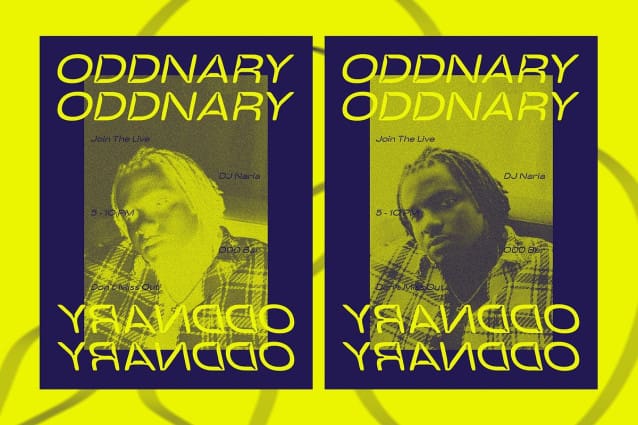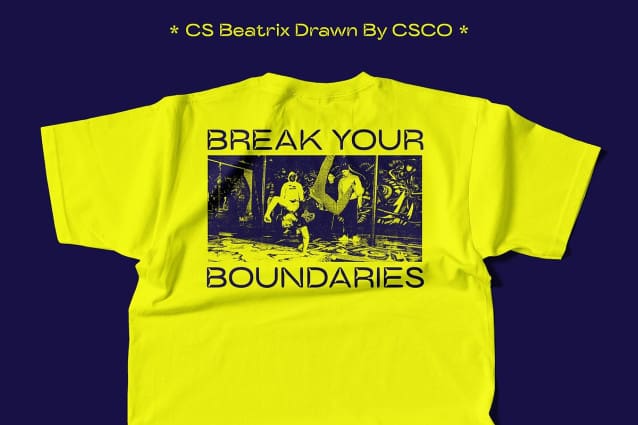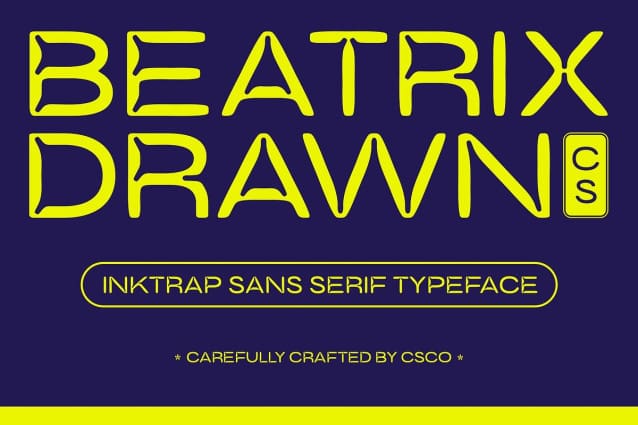
CS Beatrix Drawn Font
CS Beatrix Drawn Font is a modern sans serif font that embodies a clean and futuristic design aesthetic. Its sharp lines and geometric structure create a sleek and professional appearance, making it an excellent choice for various design projects. The incorporation of inktrap elements adds a distinctive character to each letter, enhancing legibility while providing a unique visual flair.
Artistic Drawn Effect for Warmth and Approachability Wrapped in a drawn effect, this font transforms from a simple typeface into an inviting and personal design. This artistic touch infuses warmth into the font, making it feel more approachable and relatable. The balance of a modern look with handcrafted nuances allows for a friendly yet sophisticated impression, perfect for engaging audiences across different platforms.
Versatile Applications for Creative Projects This font’s versatility shines in a wide range of applications, including branding, posters, and editorial design. Its contemporary aesthetic, combined with inktrap elements, makes it particularly effective for projects that demand both creativity and clarity. Whether you’re developing promotional materials, crafting engaging editorial layouts, or designing modern branding, this drawn font is an ideal choice for making a lasting impression.